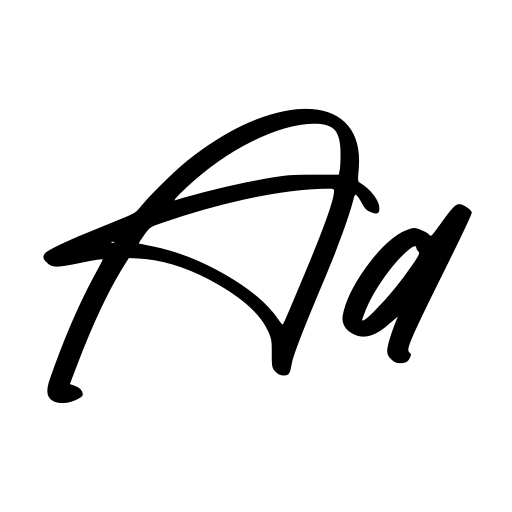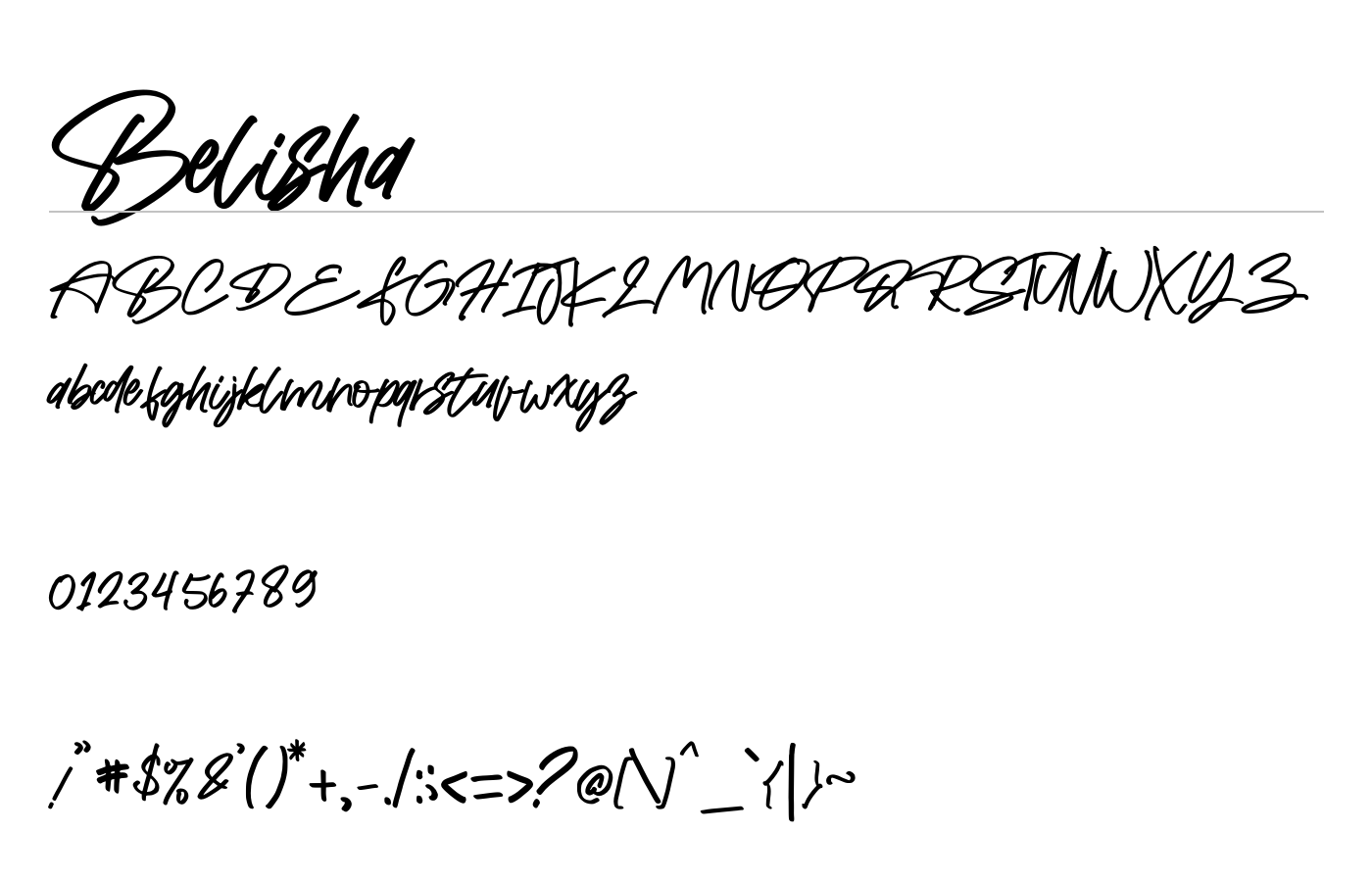
Belisha is a lively, modern script font with a hand-drawn, casual feel, featuring a fluid stroke and varied line thickness that mimics natural handwriting. Its slightly condensed letterforms and dynamic character shapes make it ideal for adding a personal, creative touch to branding, invitations, and headlines where an informal yet stylish vibe is desired. This font works especially well in projects that aim to convey friendliness and artistic flair without sacrificing legibility.
Belisha Font
About Belisha Font
| Font family | Belisha Font |